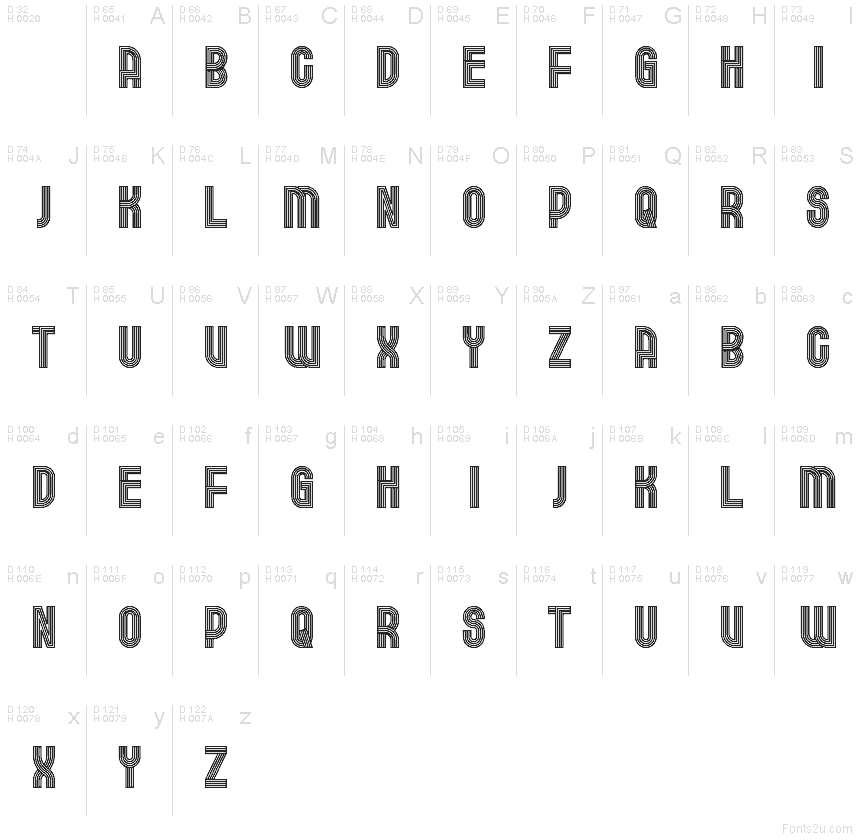
Retro Famous Book Regular
Retro Famous Book font by Vladimir Nikolic is a free retro display typeface that turns every word into a piece of neon-style signage. Built on tight, concentric linework, the Retro Famous family creates a buzzing, marquee-like texture that feels straight off a 70s theater front or vintage record sleeve. The letters are tall, clean, and rhythmic, so even with all those stripes, the message stays clear and punchy at larger sizes.
Using Retro Famous Book font on big, bold headlines gives posters, album covers, event flyers, packaging, and social media graphics an instant throwback glow. This free font thrives on generous scale, so don’t be shy about going huge, and pair it with a simple geometric sans serif for supporting text to keep the layout balanced and readable.